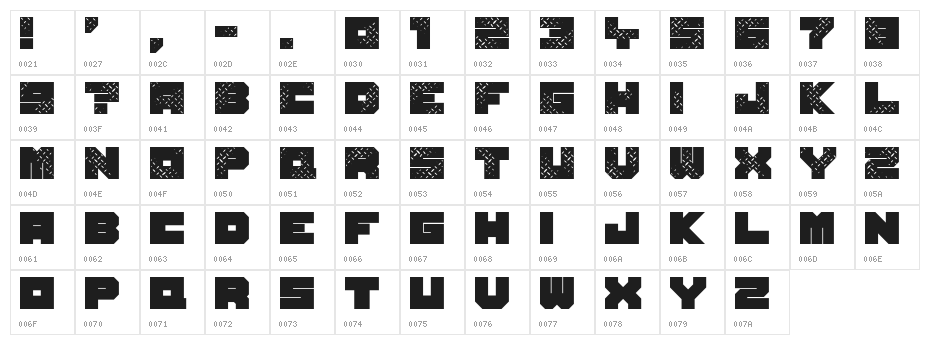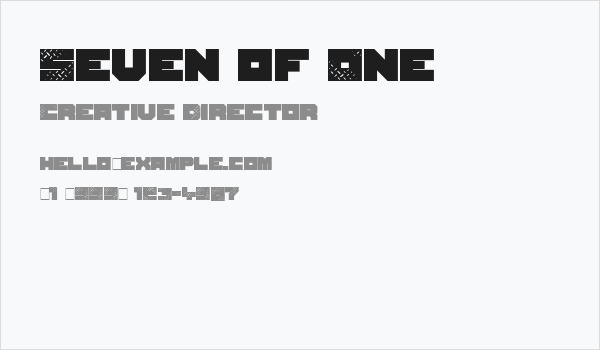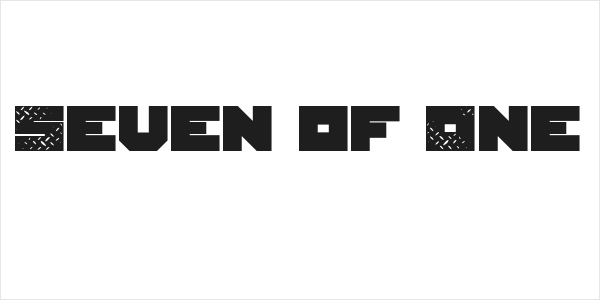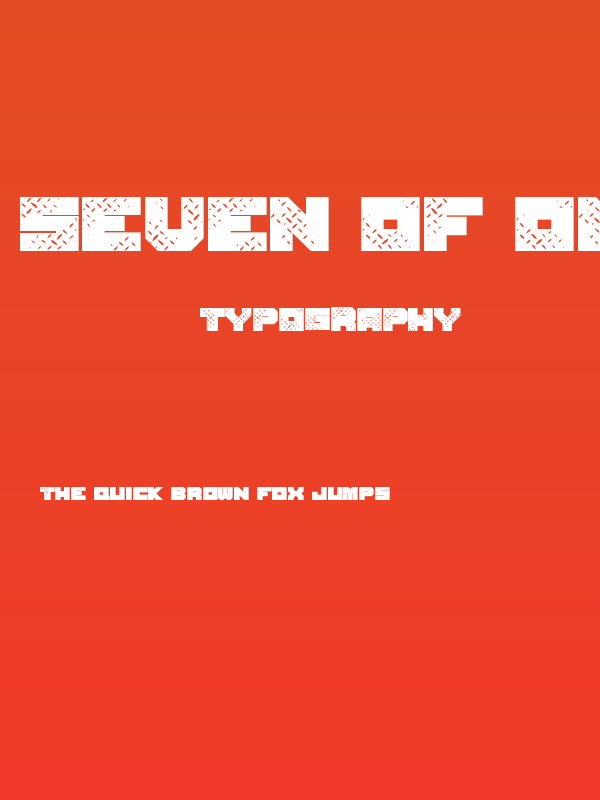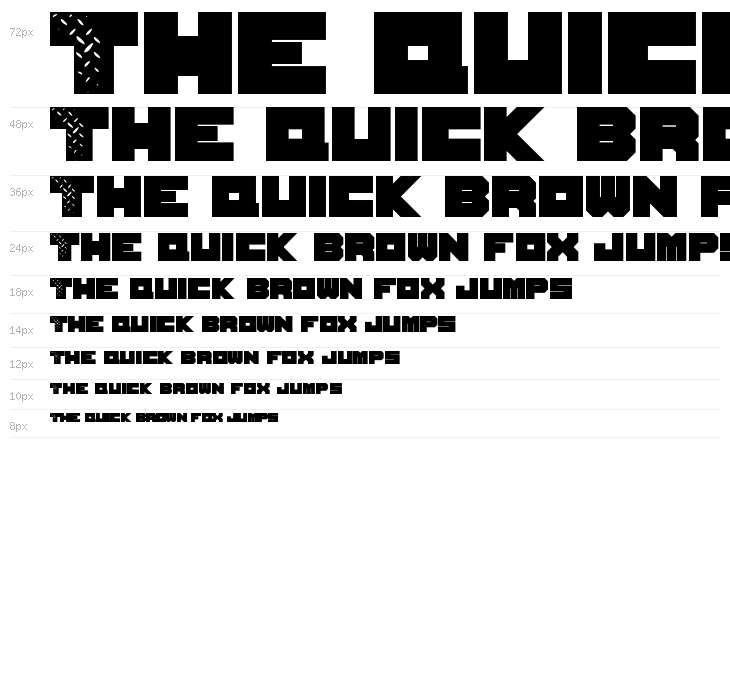
Seven of One Font
Seven of One Description
This font features a bold, geometric design with a distinct blocky appearance. The uppercase letters are characterized by sharp angles and a uniform thickness, giving them a modern and industrial feel. The font includes unique patterns within the characters, adding a decorative touch that makes it stand out. The numbers and special characters follow the same design principles, ensuring consistency across all elements. This font is ideal for projects that require a strong visual impact and a contemporary aesthetic.
| Proposed Projects | Ideal for branding, posters, and headlines that require a strong visual impact. |